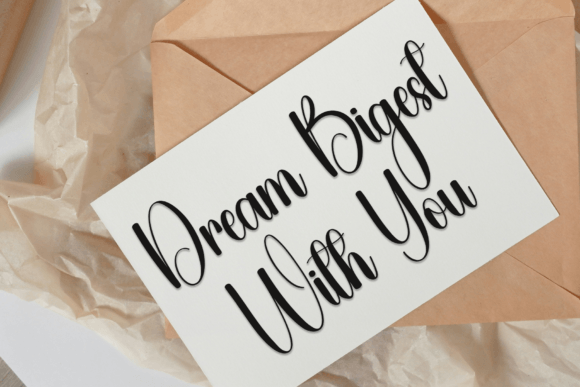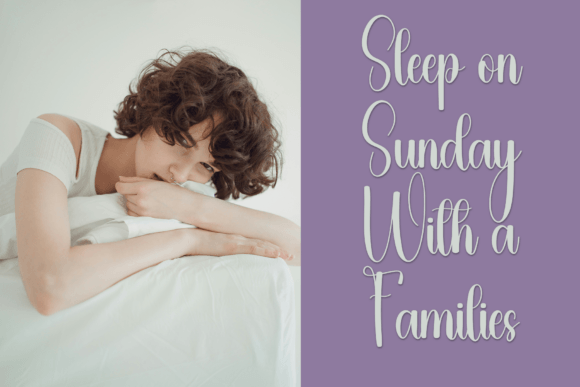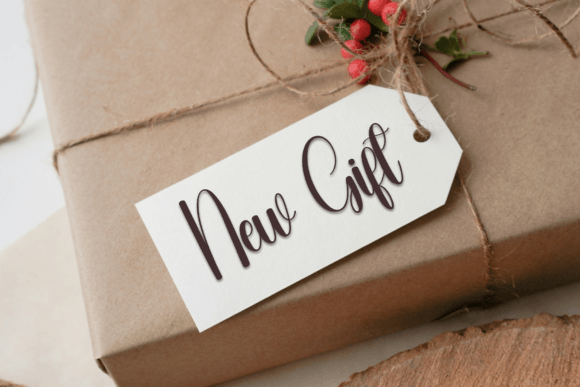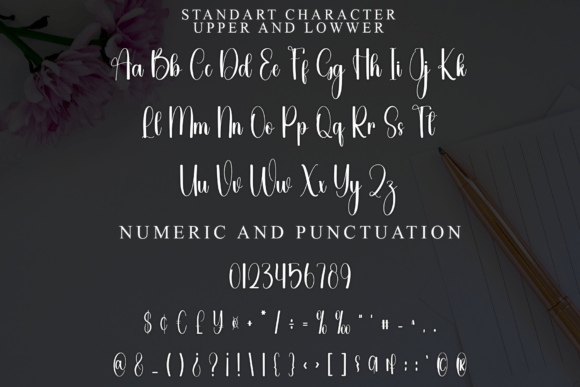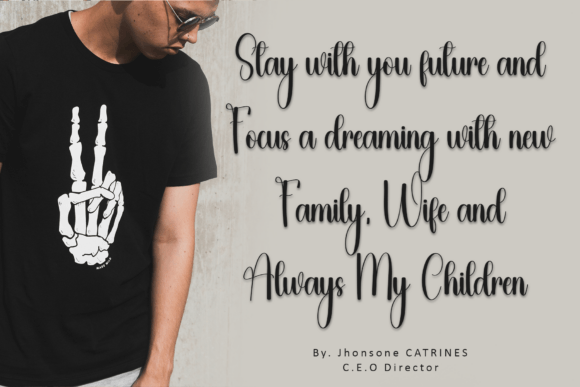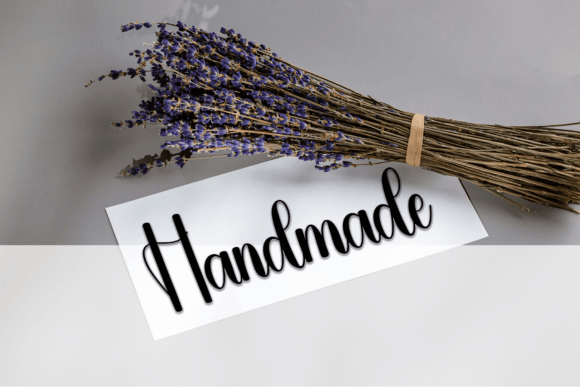
First Impressions: A Love Affair with Explore
Explore is a stylish and sophisticated font that exudes a sense of timelessness, while still feeling fresh and modern. Its impeccable form and balanced design make it perfect for a wide range of projects, from branding and advertising to packaging and digital media.
What I Love About Explore
- ✨ Elegant and refined design, perfect for high-end projects
- ✅ PUA encoded, making it easy to access all the amazing glyphs and ligatures
- 🌈 Versatile and adaptable, suitable for various design applications
- 💻 Excellent for digital media, including websites, social media, and presentations
While Explore is an exceptional font, there are a few minor quirks to be aware of:
- 🤔 Some users may find the font’s classic feel a tad too ornate for very modern or minimalist designs
- ⚠️ As with any font, it’s essential to test Explore with your specific language and character set to ensure compatibility
The Story Behind Explore: Designer Inspiration
Explore was crafted with the goal of marrying classic calligraphy with modern sensibilities. Its designer drew inspiration from timeless typography, infusing it with a fresh, contemporary atmosphere. The result is a font that’s both elegant and versatile, perfect for a wide range of creative projects.
| Is Explore suitable for body text? | While Explore is an elegant font, it’s best suited for headlines, titles, and short paragraphs. For longer body text, consider a more traditional serif or sans-serif font. |